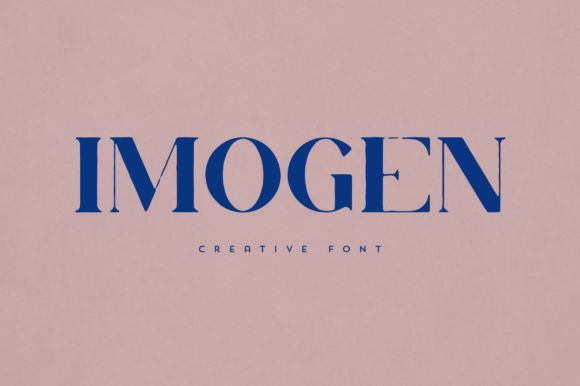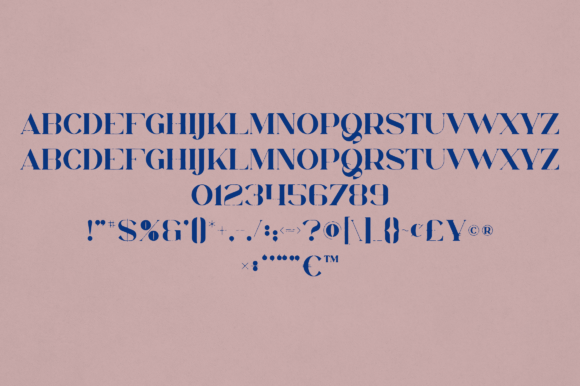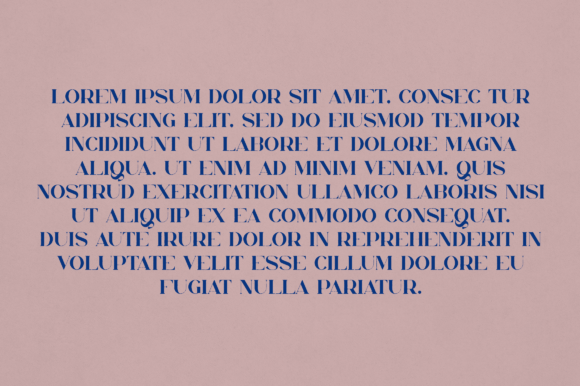
Discover the Magic of Imogen Font
There’s nothing quite like the thrill of finding the perfect font to elevate your design. You’ve spent hours pouring over typography options, and finally, you stumble upon that one font that makes everything click. For many designers, that moment is like discovering a treasure trove of creative possibilities.
Enter Imogen Font, an elegant and versatile serif font that’s sure to captivate your audience. With its sophisticated charm, Imogen Font is perfect for branding projects, home-ware designs, product packaging, magazine headers – or simply as a stylish text overlay to any background image.
As a designer, you know that the right font can make all the difference in setting your brand apart. Imogen Font offers a level of sophistication and versatility that’s hard to find in other fonts, making it an invaluable addition to your design toolkit.
Imogen Font Key Features
- Font Family: Imogen is a serif font family designed for body text and display use.
- Unique Characteristics: Imogen features a classic, elegant design with subtle flair on the ends of the strokes, giving it a unique and sophisticated look.
Imogen Font Review
As a designer, I was excited to try out the Imogen font, and overall, it’s a solid choice for various projects. ✨ One of the things I love about this font is its elegant and refined feel, making it perfect for luxury brands, high-end publications, or any project that requires sophistication.
The font comes in a range of weights and styles, which is a huge plus. This allows for a lot of versatility and makes it easier to choose the right variation for the job. I particularly like the script and italic styles, which add a touch of personality to any text. ✨ The font also looks great on both digital and print materials.
- ⚠️ The font may not be ideal for projects that require a bold, eye-catching font. It’s more suited for projects where subtlety is key.
- ⚠️ Some users may find the font’s curves a bit too smooth, which can make it look less humanistic.
Overall, I think Imogen font is a great choice for designers who want to add a touch of elegance to their projects. While it may have some limitations, it’s a solid addition to any design library. With its versatility and range of styles, I’m sure it will become a go-to font for many designers.
Imogen Font is particularly useful in Canva for creating elegant and sophisticated designs, such as invitation templates and business cards.
Imogen Font is a great choice for creating high-end designs in Adobe Photoshop or Illustrator, such as logos and typography-based art.
Imogen Font is a versatile font that works well in PowerPoint and Word for creating professional-looking presentations and documents.
Imogen Font is ideal for:
- Business cards and stationery
- Invitations and event materials
- Typography-based art and designs
Alternatives to Imogen Font for Designers
Lato Font is a sans-serif typeface designed by Łukasz Dziedzic. It is a versatile font suitable for both body text and headings. Lato is a great alternative to Imogen Font for designers who need a clean and modern look. Lato is more geometric and has a stronger x-height compared to Imogen Font.
Montserrat Font is a sans-serif typeface designed by Julieta Ulanovsky. It is a popular font among designers due to its modern and urban feel. Montserrat is a great alternative to Imogen Font for designers who need a font with a strong grid-based structure and a wide range of weights.
Merriweather Font is a serif typeface designed by Eben Sorkin. It is a classic font suitable for body text and is often used in publishing and printing. Merriweather is a great alternative to Imogen Font for designers who need a traditional and elegant look. Merriweather has a more traditional feel compared to Imogen Font and is often used in combination with other fonts.
How do I access the font’s advanced features, such as ligatures and swashes?
Imogen Font supports a range of advanced features, including ligatures, swashes, and contextual alternates. To access these features, ensure that your design application is set to use OpenType font rendering. You can then select the desired feature from the font’s menu or use keyboard shortcuts to access the various options.